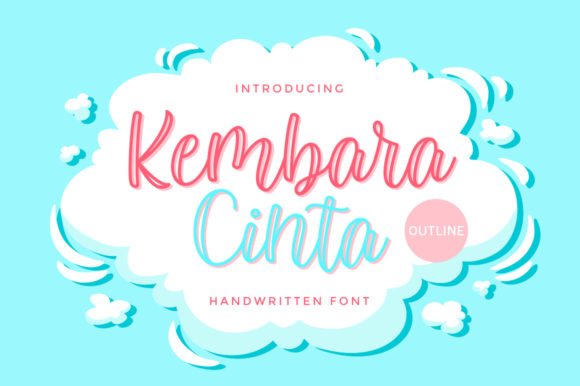
Step into the realm of visual enchantment with Kembara Cinta Outline Font, a captivating script font family that ignites creativity and leaves an unforgettable mark. Crafted by the talented fargunstudio, this font is a whimsical dance of lines, curves, and flourishes that captivates the eyes and speaks to the heart.
Kembara Cinta Outline's casual and playful nature makes it a perfect match for personalizing your creations. Design logos that exude charm and individuality, craft social media posts that pop with personality, or create DIY projects that radiate a handmade touch. Let your imagination soar as you explore the endless possibilities that await you.
Whether you're a seasoned designer or just starting your creative journey, Kembara Cinta Outline is the perfect companion. Its clean lines and subtle quirks add a touch of elegance to any project, while its effortless flow ensures readability and visual appeal.
With Kembara Cinta Outline, you'll discover a font that not only elevates your designs but also resonates with your audience. Its enchanting appearance sparks curiosity and draws attention, while its versatility allows it to adapt seamlessly to a wide range of projects.
Embrace the magic of Kembara Cinta Outline and watch your creative vision come to life. Its enchanting allure will captivate your audience, leaving them spellbound by the beauty of your creations. Unleash your imagination and create designs that ignite hearts and leave a lasting impression.